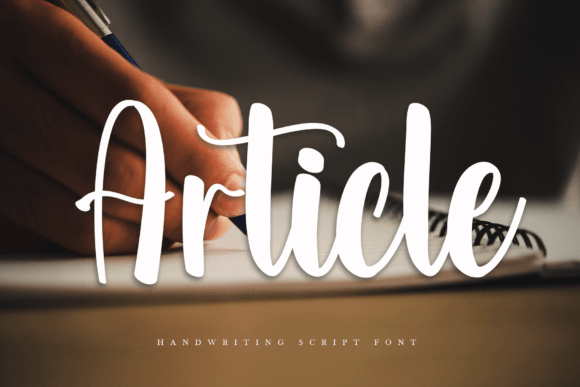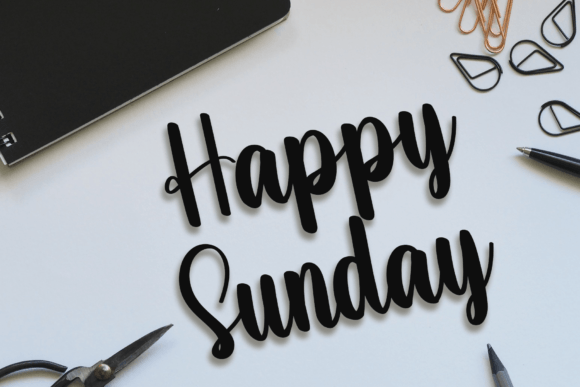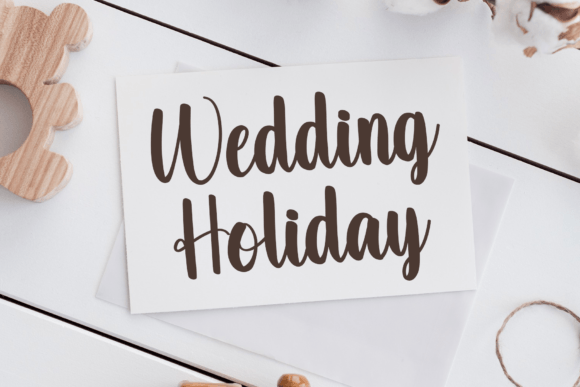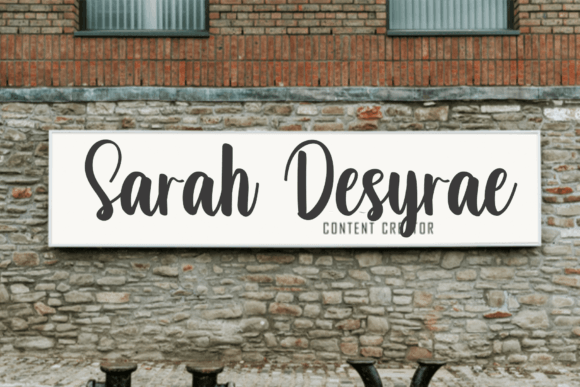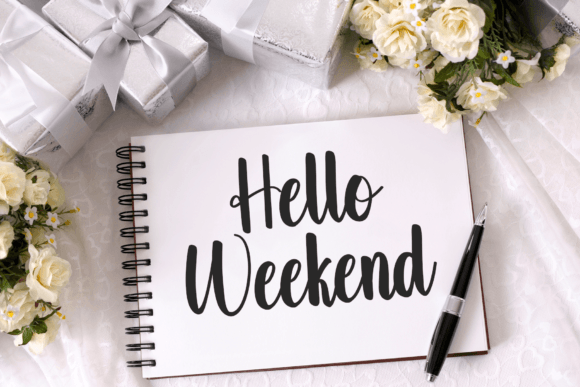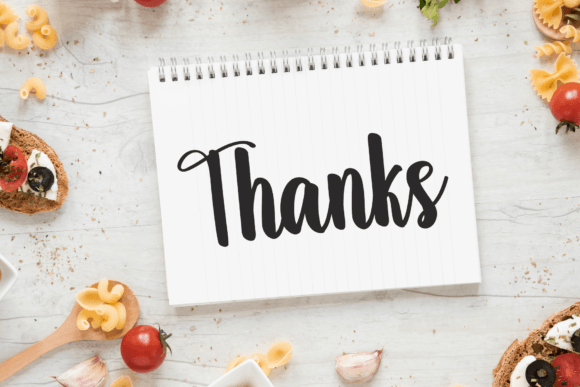
Article Font
About Article Font
“Article” is a luxurious handwritten font that embodies an elegant touch, making it an ideal choice for your favorite design projects. Its incredibly distinct and timeless style sets it apart, inviting you to fall in love with its unique charm and use it to craft spectacular designs.
The luxurious quality of “Article” lends an air of sophistication to any creative endeavor. Whether you’re working on branding, invitations, packaging, or other design projects, this font adds a touch of opulence that elevates the overall aesthetic.
The distinct and timeless style of “Article” ensures that your designs make a lasting impact. The font’s well-crafted characters and elegant details contribute to creating visually striking compositions. Whether used in print or digital media, “Article” brings a sense of refinement to your visual creations.
With its handwritten charm and luxurious appeal, “Article” becomes a design asset that enhances the beauty of your projects. Its versatility allows it to complement various design elements, making it a valuable addition to your creative toolkit.
Whether you’re crafting logos, invitations, or any other design piece, “Article” encourages you to appreciate its unique style and use it as a key element in creating truly spectacular designs. Let this font be the signature touch that transforms your projects into visually stunning works of art.